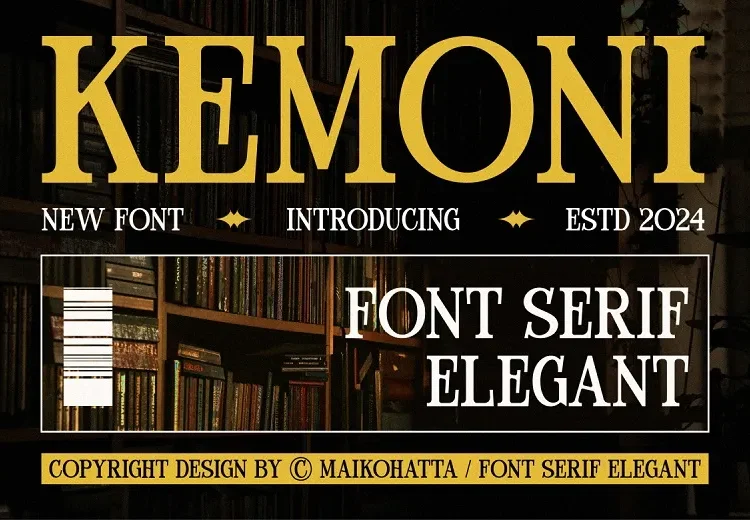
Kemoni Font
Kemoni is a sophisticated new serif typeface that stands out for its elegance, strength, and intricate design features. With a combination of thin and thick strokes, curved shapes, and clean serif styles, Kemoni font brings a polished and refined look to any project. These design elements create an impression of sophistication, making it ideal for projects that demand both elegance and power.
The clear edges and carefully crafted details of each character in Kemoni font contribute to its beautiful appearance, conveying a sense of luxury and professionalism. Whether used for logos, editorial design, or branding, this font enhances the visual appeal of any design, adding a touch of timeless elegance.
Thanks to its refined style and balanced design, Kemoni font is versatile enough to be used across various media. Its intricate strokes and precise curves make it suitable for both print and digital applications, giving any project a sophisticated edge.